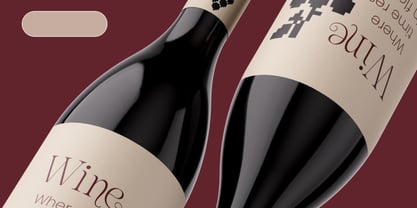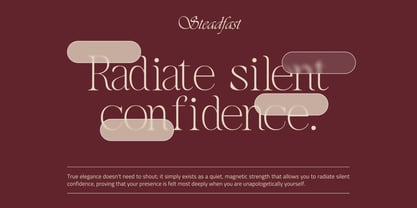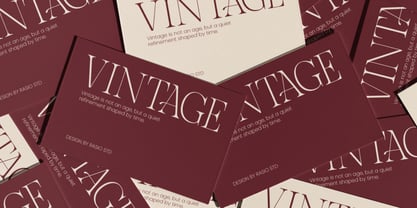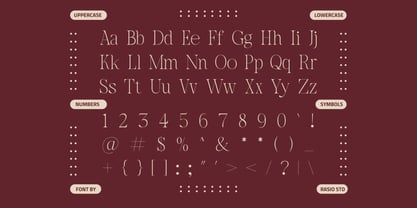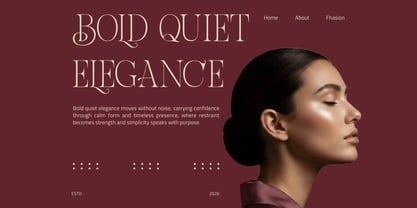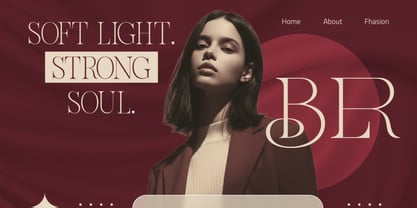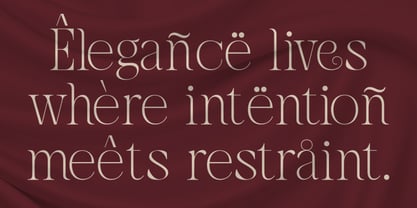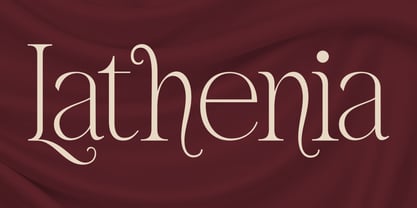
Lathenia
by Rasio Studio
The Lathenia Font Family was designed by Fajar Indra and published by Rasio Studio. Lathenia contains 1 styles. More about this family
Lathenia is a refined modern serif typeface defined by graceful curves, high contrast strokes, and delicate ligatures that create a timeless and luxurious presence. Its slender proportions, soft terminals, and flowing letterforms bring an editorial fashion aesthetic with a sophisticated, premium character. Relevance and Use Cases is perfect for luxury branding, fashion magazines, beauty packaging, boutique logos, wedding invitations, cosmetic labels, editorial layouts, book covers, certificates, social media posts, premium marketing materials, and any design that needs a refined, classy, and sophisticated serif appearance.
Designers: Fajar Indra
Foundry: Rasio Studio